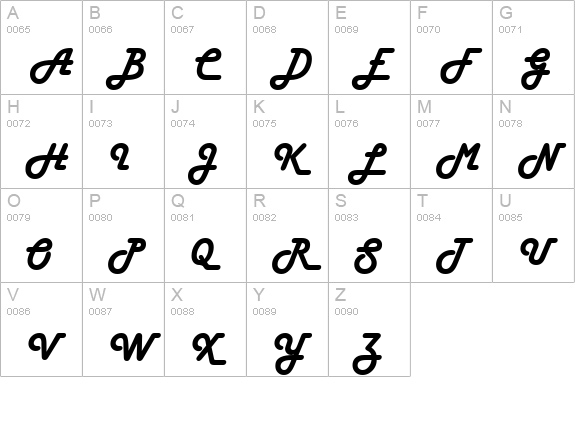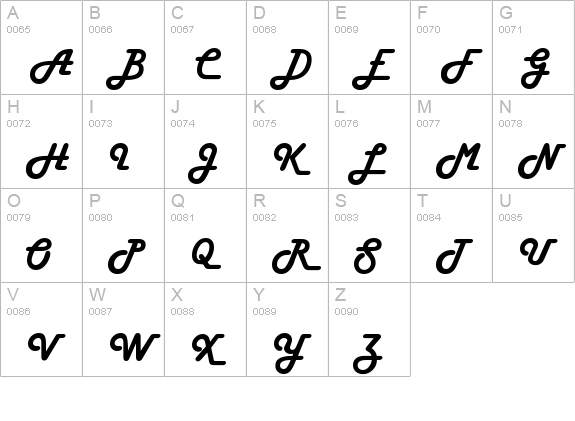
Happy Days font is a delightful and playful typeface that exudes joy and positivity. Designed with a whimsical touch, it captures the essence of cheerful moments and carefree days. With its rounded shapes and lively letterforms, Happy Days is sure to bring a smile to any design project. This font is not only aesthetically pleasing but also highly versatile. It can effortlessly add a touch of playfulness to a wide range of designs, including logos, branding materials, invitations, posters, and more. Whether you're designing for a children's book, a summer party, or a vibrant social media campaign, Happy Days font will infuse your creations with an infectious sense of happiness. What makes Happy Days font even more appealing is the fact that it is completely free. Yes, you read that right! You can freely download this font from FontsMarket.com and start using it in your designs right away. This means that you don't have to worry about any licensing restrictions or additional costs. Happy Days font is here to spread joy and creativity without any barriers. Available in both uppercase and lowercase letters, along with numerals and a selection of special characters, Happy Days font offers a wide range of possibilities to let your imagination run wild. Its smooth curves and friendly appearance make it easy to read, ensuring that your message is conveyed effortlessly. So, why wait? Embrace the happiness and positivity that Happy Days font brings to your designs. Download it for free from FontsMarket.com and let this playful typeface bring a little sunshine into your creative endeavors. Whether you're designing for personal projects or professional endeavors, Happy Days font is the perfect companion to add a touch of joy to your typography.